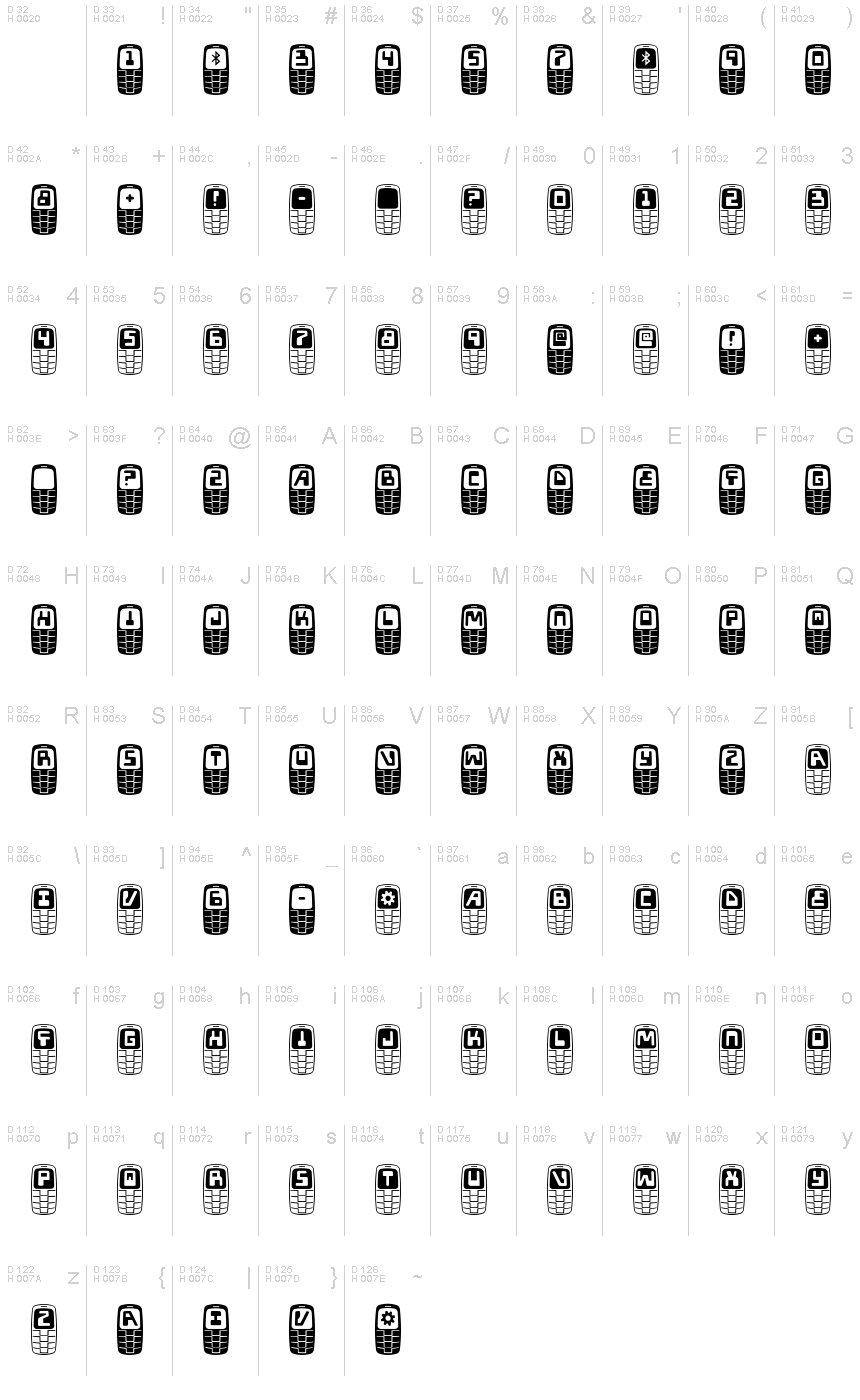
Hola Mota Ergodynamic
Hola Mota Ergodynamic, a captivating display font crafted by Iconian Fonts, exudes a touch of whimsical elegance. Its distinct character is defined by sharp, angular letterforms that effortlessly blend retro-inspired aesthetics with a modern sensibility. The font's bold, eye-catching presence immediately commands attention, making it an ideal choice for creating striking headlines, attention-grabbing logos, and impactful brand elements.
This versatile font lends itself well to a diverse range of design applications, from editorial layouts and packaging design to web interfaces and promotional materials. Hola Mota Ergodynamic's strong, distinctive personality allows it to seamlessly integrate into both contemporary and vintage-inspired design concepts, making it a versatile asset for creative professionals seeking to add a touch of flair and individuality to their projects.